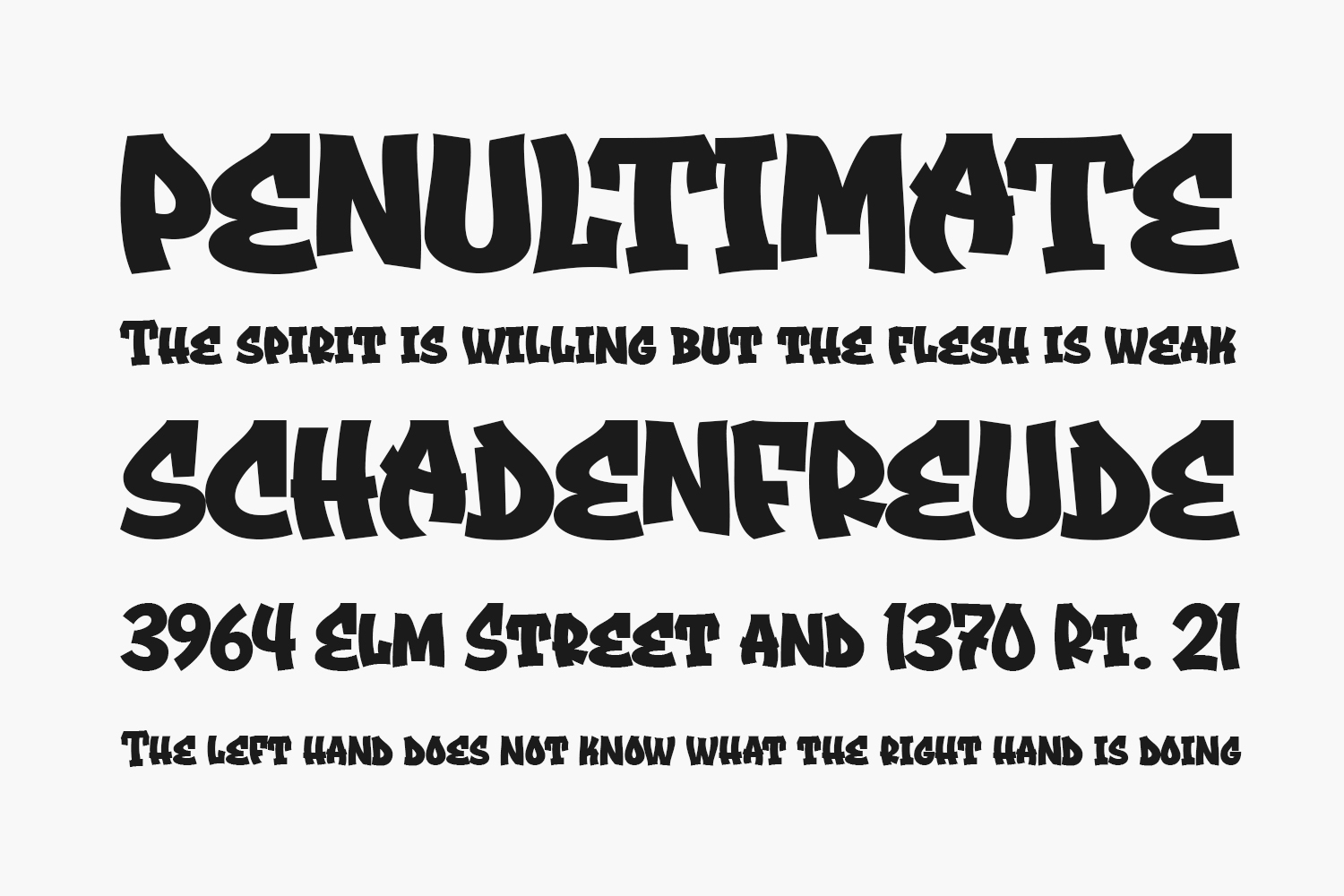
Brockers Free Font is a cool, bold, graffiti styled display font. This font is suitable for designs such as t-shirts, sportswear, logos, advertisements, clothing, and more. Brockers Free Font was designed by Bangkit Tri Setiadi and is free for personal use only. Please purchase the full version for commercial use.
Designed by Bangkit Tri Setiadi